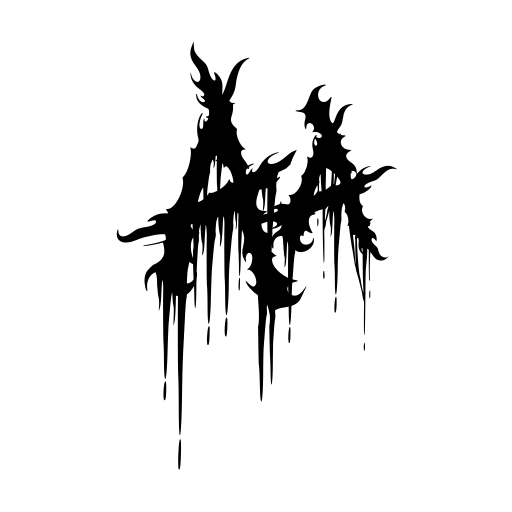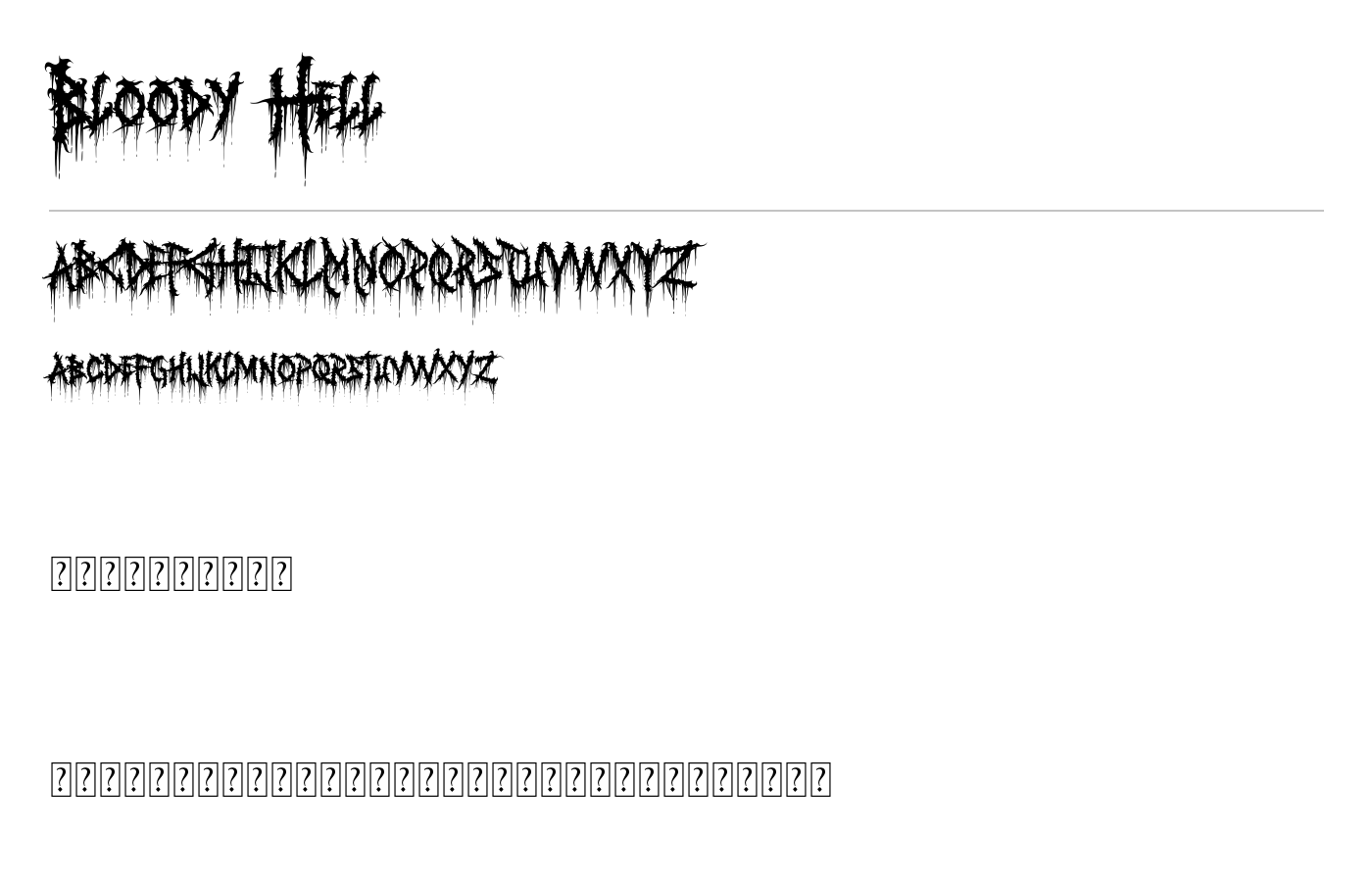
Bloody Hell is a highly stylized, decorative display font with a horror-inspired design, featuring jagged, dripping strokes that create a dramatic and eerie effect. Its dense, condensed letterforms and sharp, irregular edges make it perfect for eye-catching headlines, spooky event posters, and Halloween-themed branding where a bold, unsettling vibe is desired. This font stands out in designs that aim to evoke fear, suspense, or a dark, gothic atmosphere.
Bloody Hell Font
About Bloody Hell Font
| Font family | Bloody Hell Font |
| Designer | Muhammad Sirojuddin |